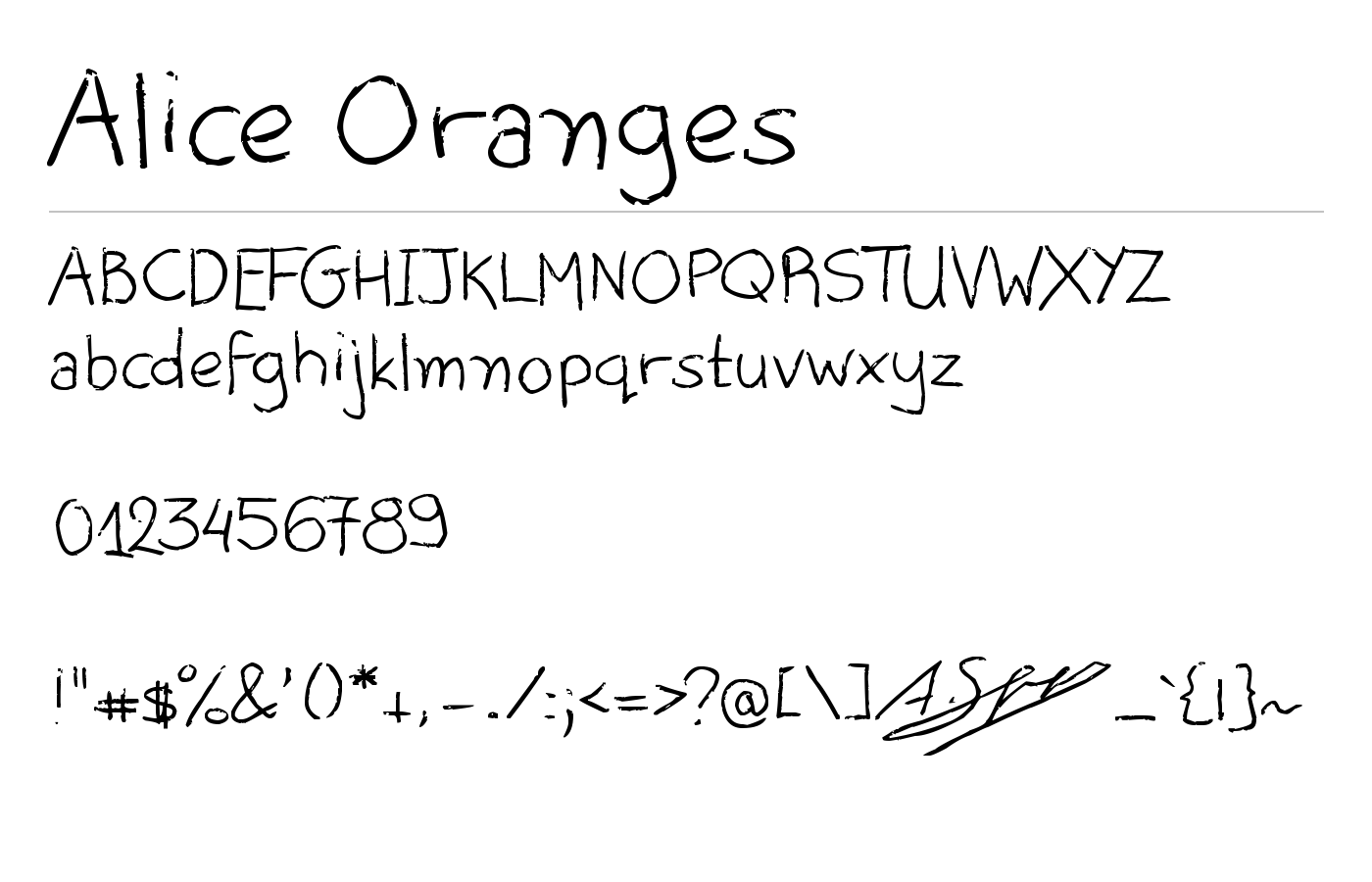
Alice Oranges is a playful, casual handwritten sans serif font with a light weight and slightly uneven, organic stroke texture that gives it a charming, hand-drawn feel. Its tall x-height and narrow letterforms make it legible while retaining a quirky, informal personality perfect for friendly, creative designs. This font works well for projects that want to convey warmth and approachability, such as children’s books, casual branding, and artistic posters.
Alice Oranges Font
About Alice Oranges Font